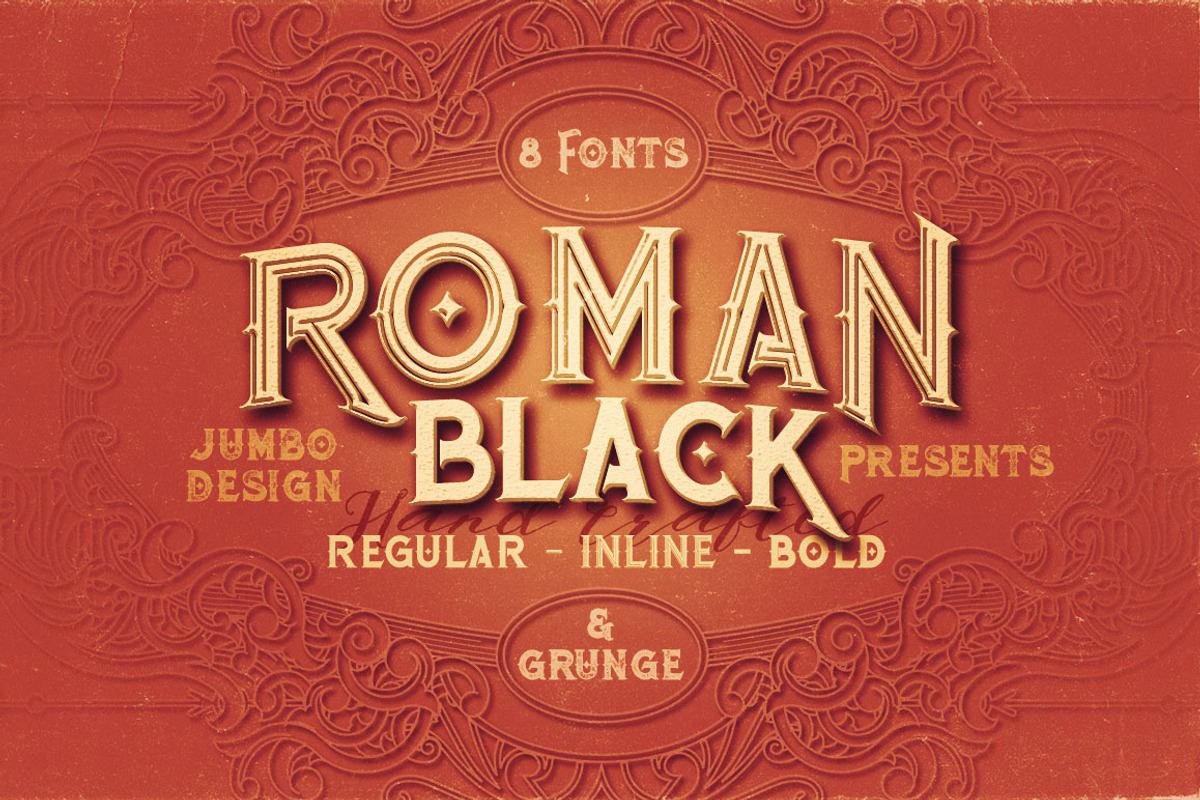
Roman Black - 8 Display Fonts Free Download
Unleash bold elegance with the Roman Black - 8 Display Fonts Free Download — a striking collection of display typefaces designed to make an unforgettable impact. With 8 distinct styles ranging from sleek and modern to bold and theatrical, Roman Black is perfect for posters, editorial headlines, branding, product packaging, music covers, and luxury fashion campaigns.
Each font in the set brings its own unique edge, offering creative flexibility while maintaining a consistent, powerful aesthetic. Whether you're aiming for dramatic flair or timeless sophistication, Roman Black delivers visual authority in every letter.